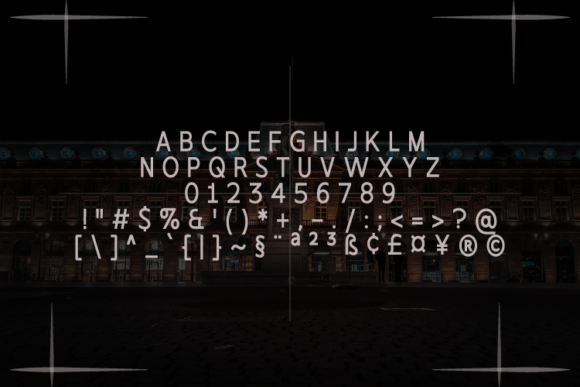
Unleashing the Power of Typography: Arkelogue Bold Font
There’s nothing quite like the thrill of bringing a design concept to life. The blank page stares back at you, waiting for the perfect combination of colors, textures, and – of course – typography. For designers, the right font can be the difference between a good design and a great one. And that’s where the Arkelogue Bold Font comes in – a simple yet striking sans serif font that’s sure to elevate any project.
With its clean and elegant arrangement of letters, the Arkelogue Bold Font is the perfect addition to any design. Whether you’re working on a formal brochure or a casual social media campaign, this font is sure to make a statement. And with 10 different weights to choose from, you can tailor the Arkelogue Bold Font to fit your unique design needs.
- Unique Characteristics: Geometric sans-serif design, bold and modern aesthetic, highly legible at various font sizes
Arkelogue Bold Font Review
As a designer, I was excited to try out the Arkelogue Bold Font. In my opinion, this font has some great qualities that make it a good addition to any design project.
- ✨ Clean and Modern Design: Arkelogue Bold Font has a sleek and modern aesthetic that makes it perfect for contemporary designs.
- ✨ Versatility: This font can be used for a wide range of projects, from logos and headings to body text and social media graphics.
- ✨ High-Quality Fonts: The font is well-designed and has a high level of detail, making it look great at various font sizes.
- ⚠️ Limited Language Support: One of the major drawbacks of this font is its limited language support, which may not be suitable for multilingual projects.
- ⚠️ Overuse: The modern design of the font can make it look dated if overused, so it’s essential to use it thoughtfully and balance it with other fonts.
Overall, I think Arkelogue Bold Font is a solid choice for designers who want a clean and modern look. While it has some limitations, its versatility and high-quality design make it a great addition to any design project.
Tips for Getting the Most Out of Arkelogue Bold Font
Use Arkelogue Bold Font in headings and titles to create a bold and eye-catching design. Combine it with other bold fonts to create a striking visual effect. Experiment with different font sizes and colors to find the perfect balance for your design.
Arkelogue Bold Font is ideal for use in logos, headings, titles, and other design elements where a bold and eye-catching font is needed. It’s also great for use in business cards, brochures, and other marketing materials where a professional and modern look is desired.
Alternative Fonts to Arkelogue Bold
1. Montserrat Bold
Montserrat Bold is a sans-serif font designed for urban environments. It’s perfect for use in headings, titles, and other display typography where a strong, modern feel is desired. Montserrat Bold has a similar geometric feel to Arkelogue Bold, but with a slightly more angular and geometric appearance.
2. Inter Bold
Inter Bold is a highly legible sans-serif font designed for digital use. It’s ideal for use in body text, as well as headings and titles where a clean, modern feel is desired. Inter Bold is similar to Arkelogue Bold in terms of its clean lines and geometric feel, but with a more subtle and understated appearance.
3. Lato Bold
Lato Bold is a sans-serif font with a modern and elegant feel. It’s perfect for use in headings, titles, and other display typography where a touch of sophistication is desired. Lato Bold has a more rounded and friendly appearance compared to Arkelogue Bold, but still maintains a strong and bold presence.
What is the character set and language support for the Arkelogue Bold Font?
The Arkelogue Bold Font includes a comprehensive character set that supports over 200 languages, including Latin, Cyrillic, Greek, and many more. The font also includes a wide range of punctuation, symbols, and diacritical marks to ensure that you have everything you need for your design projects.